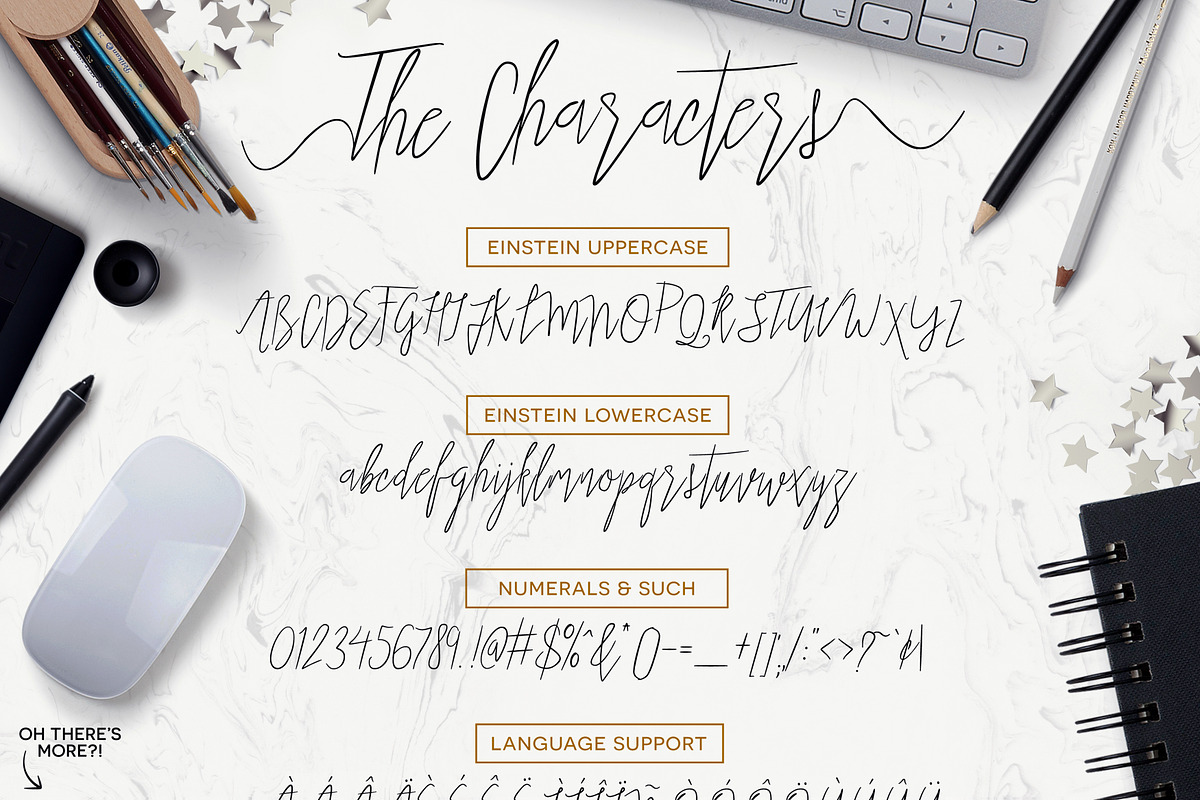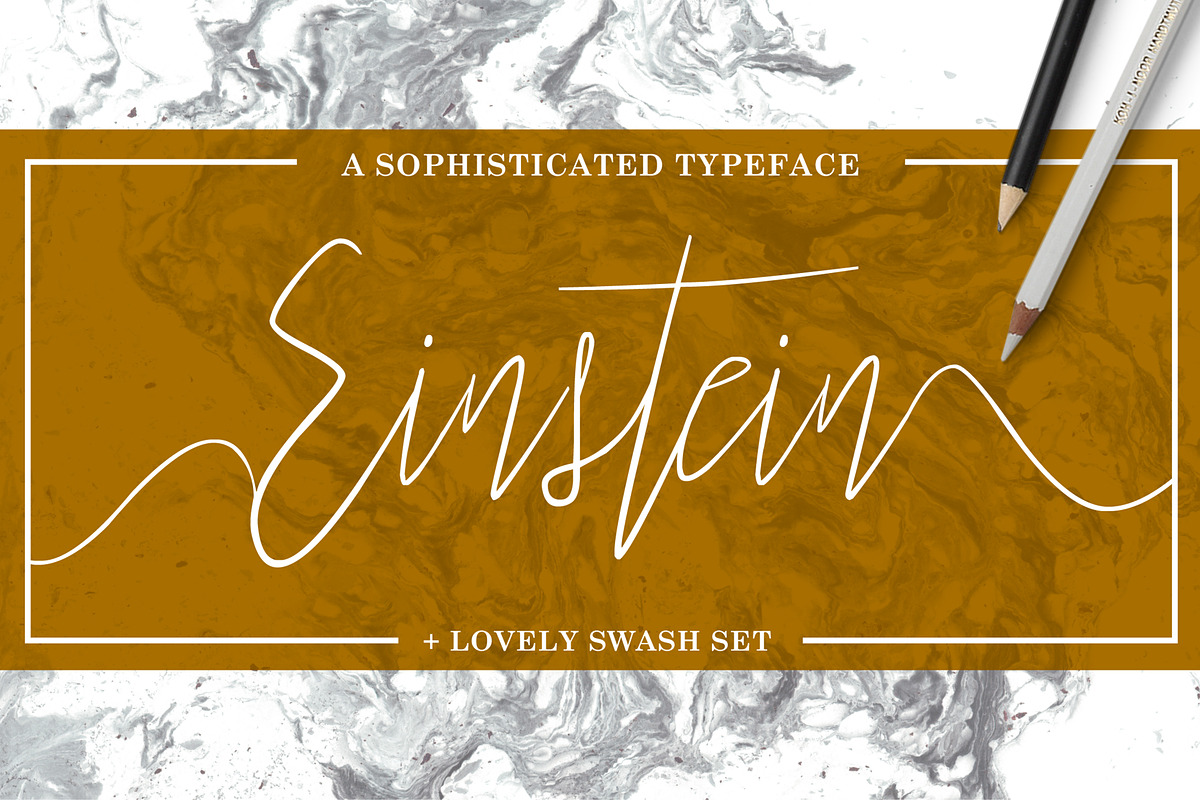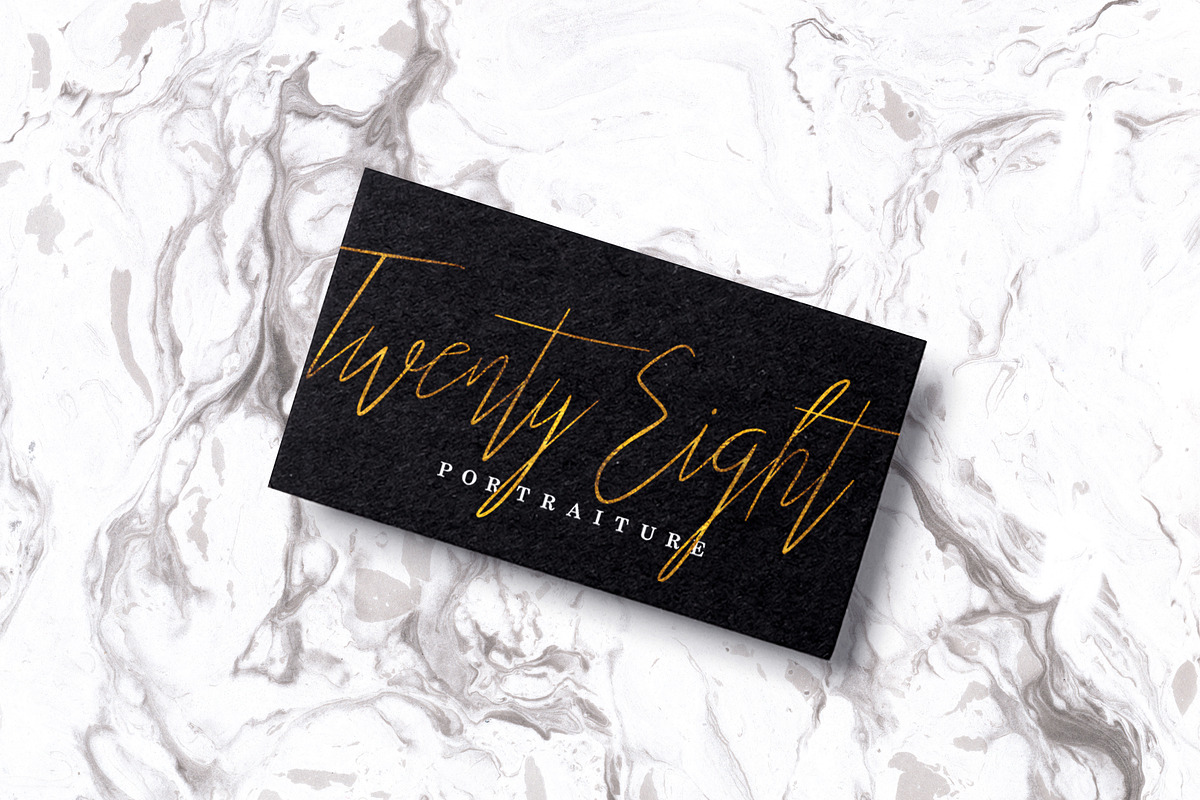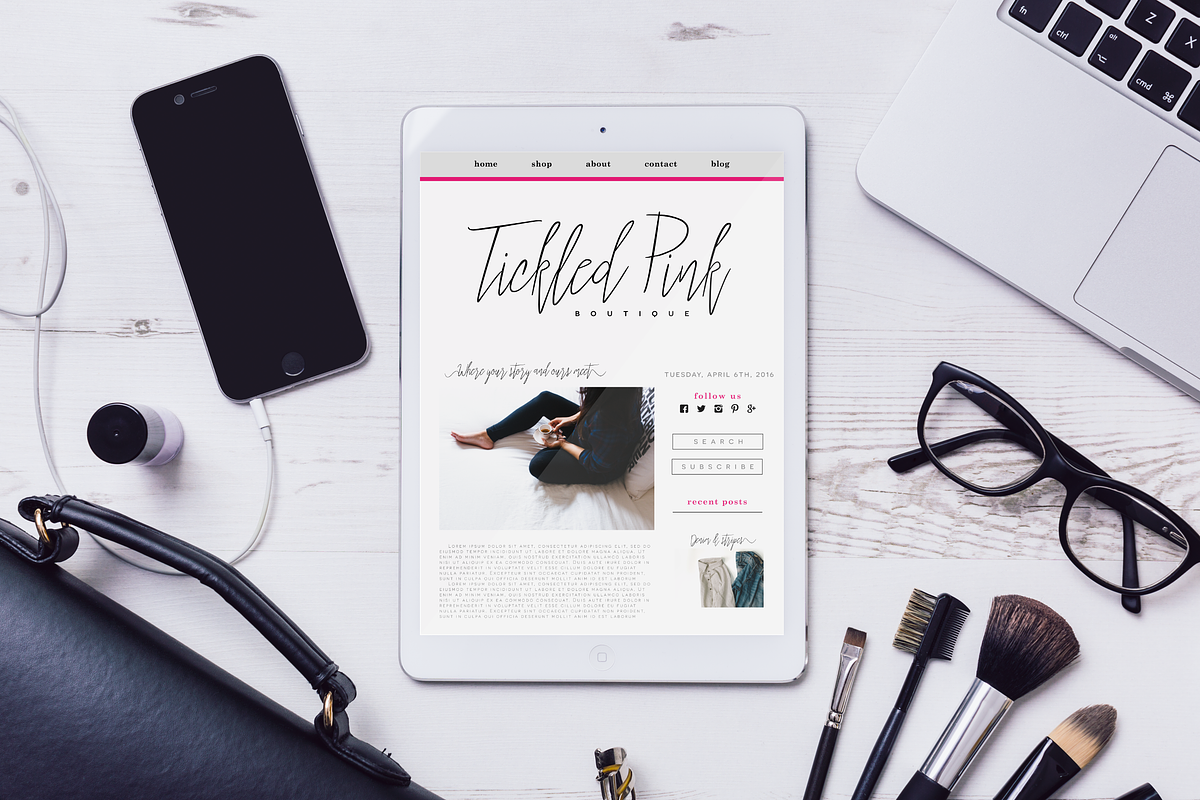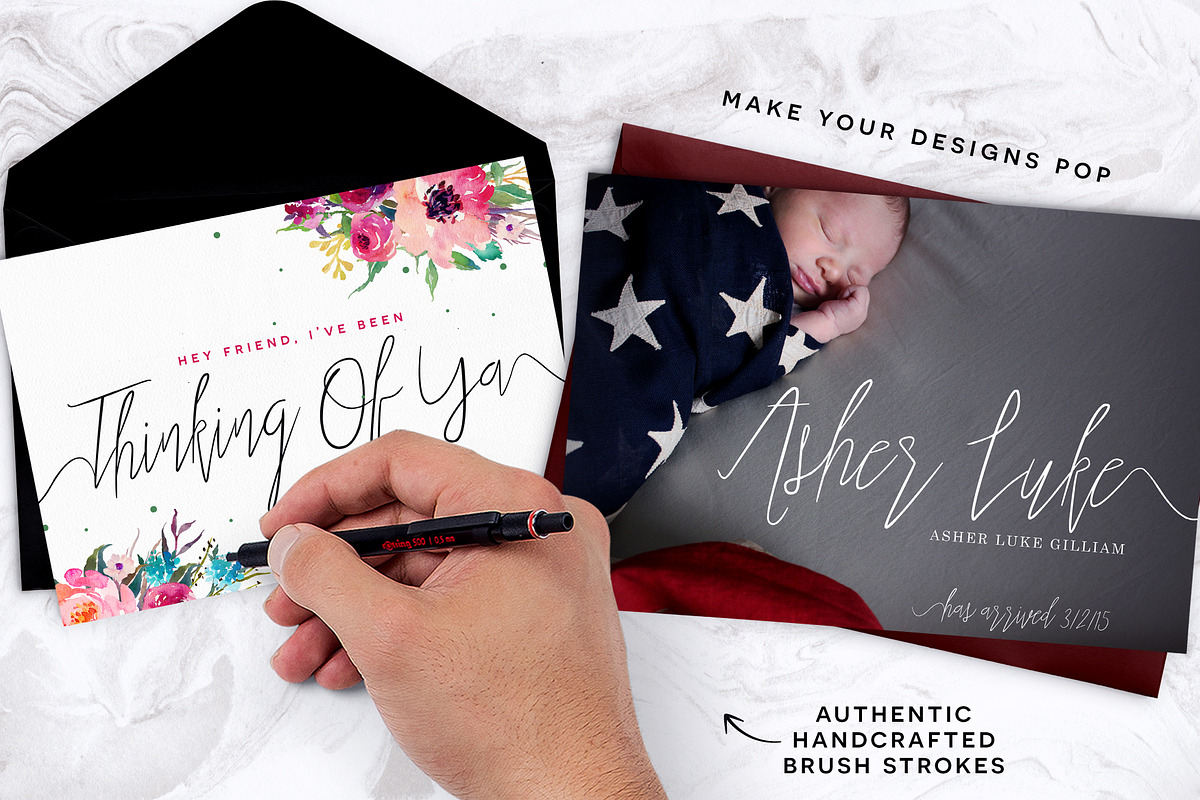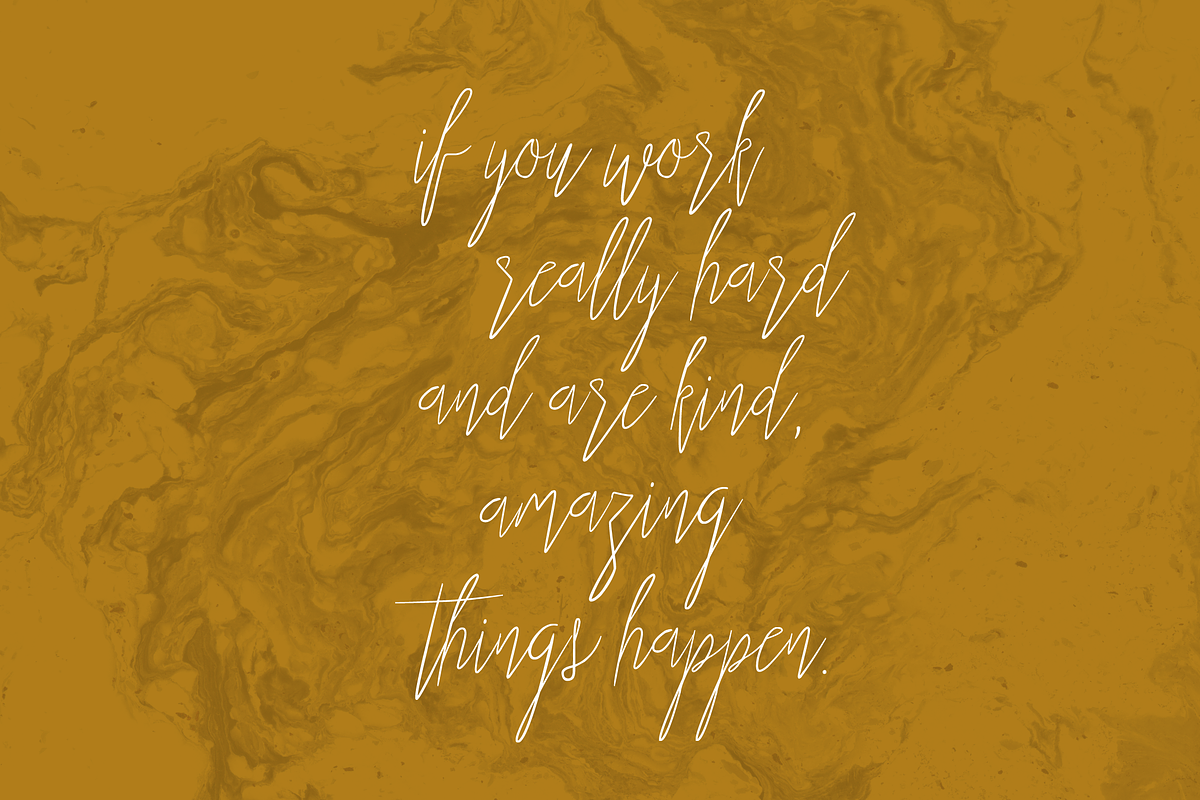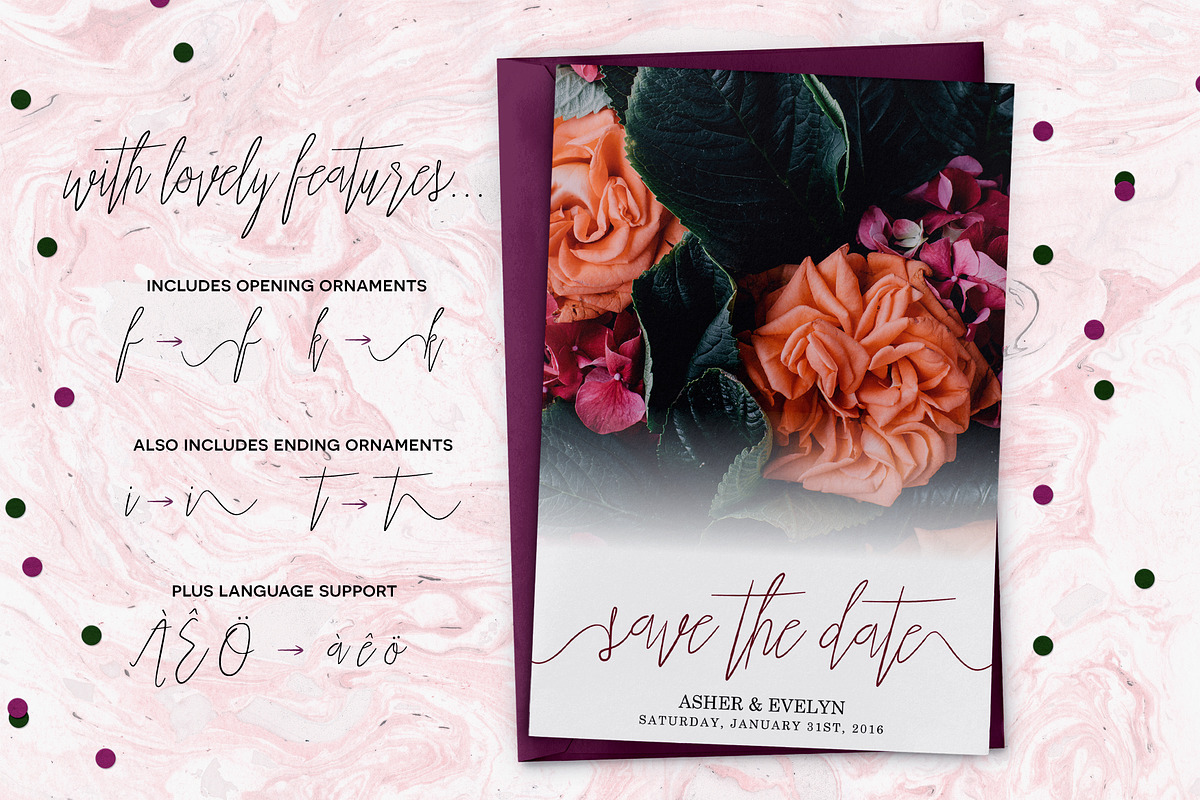
Einstein Font + Bonuses
Einstein Font + Bonuses by Flycatcher Design is a font selected for branding, posters, packaging, typography.
- 1) 26 Upper & Lowercase Opening Ornaments
- 2) 26 Upper & Lowercase Ending Ornaments
- 3) Over 60 Bonus Glyphs including Language Support and some other fun characters
- The font pack includes 26 capitals, 26 lowercase, full punctuation, and international language support.
- THE EXTRAS: Wanting to make sure you had everything you needed to make your project complete with that handcrafted feel, I’ve included: 1) 2
Why Einstein Font + Bonuses is worth a look
Einstein Font + Bonuses by Flycatcher Design fits naturally into Branding, posters, packaging, typography.